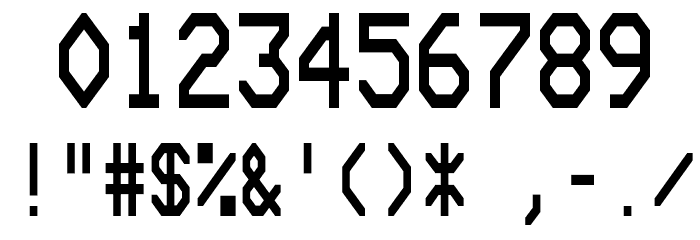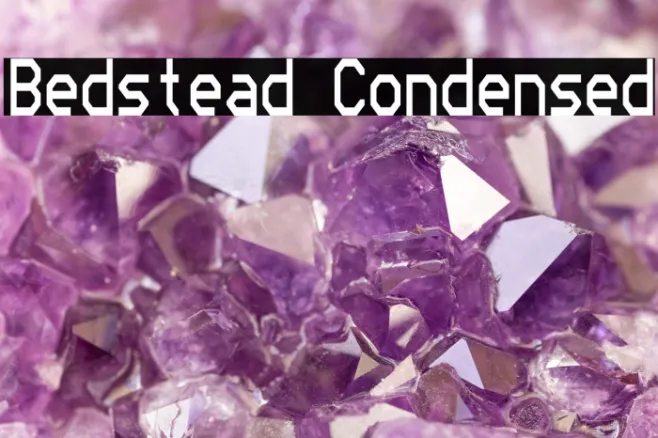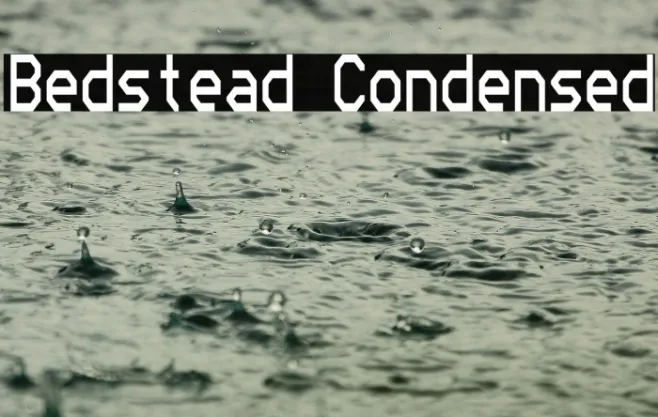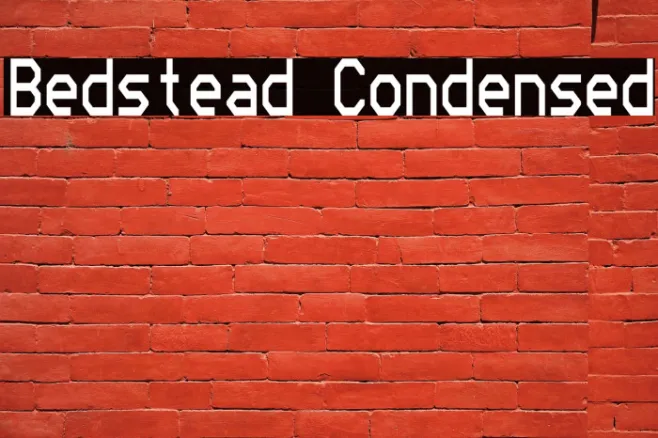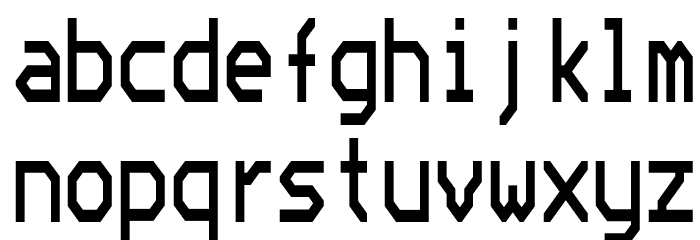
Bedstead Condensed Font
Bedstead Condensed Description
This font features a geometric and condensed design, characterized by its angular and blocky letterforms. The uppercase and lowercase letters maintain a consistent height, giving it a uniform appearance. The numerals and special characters follow the same angular style, providing a cohesive look across all characters. The font's condensed nature makes it suitable for space-saving applications while maintaining readability. Its distinct and modern aesthetic is ideal for projects that require a bold and striking visual impact.